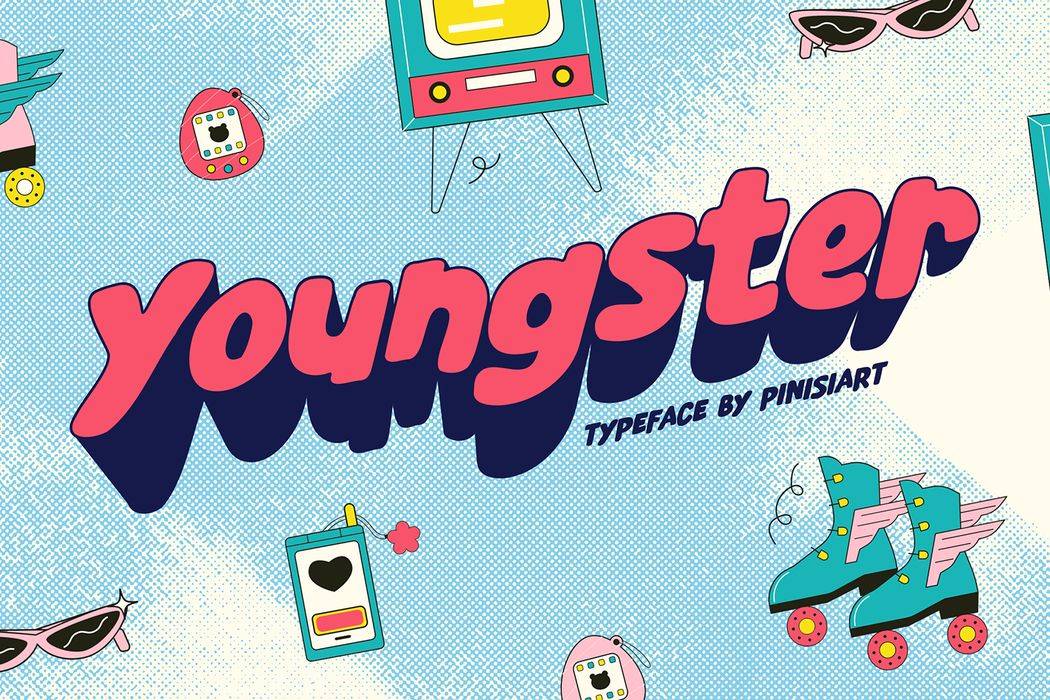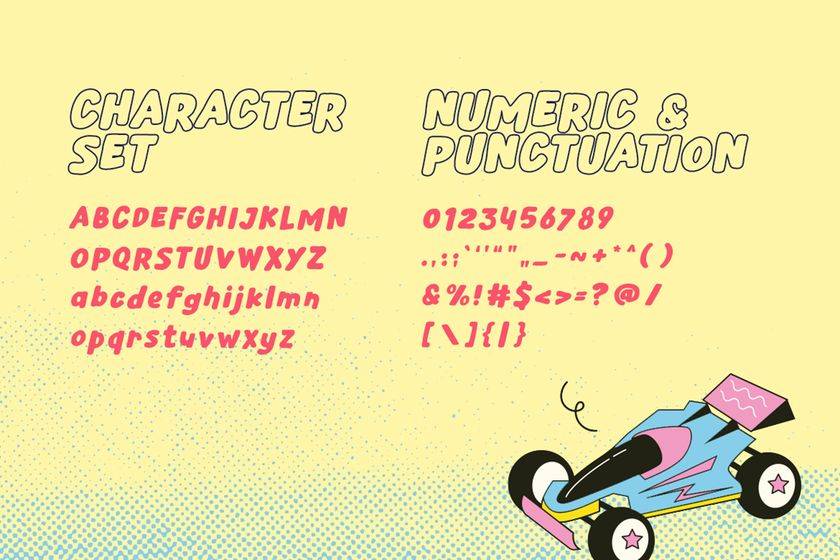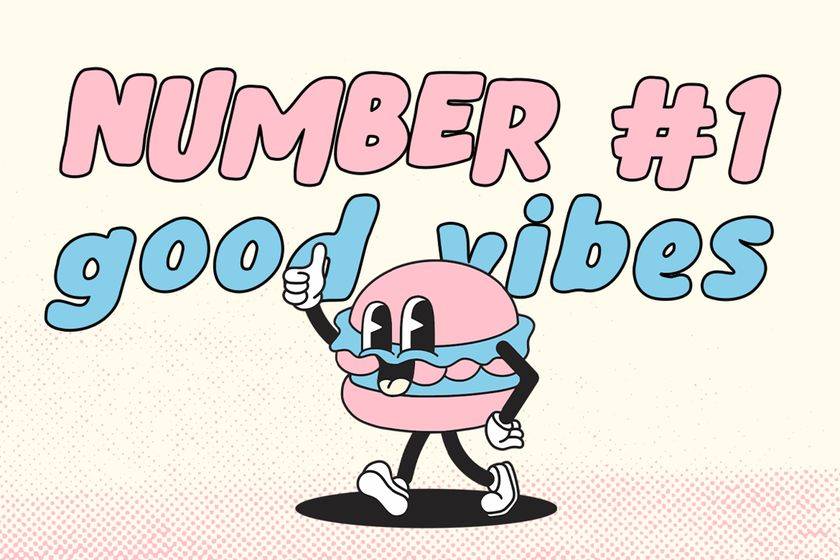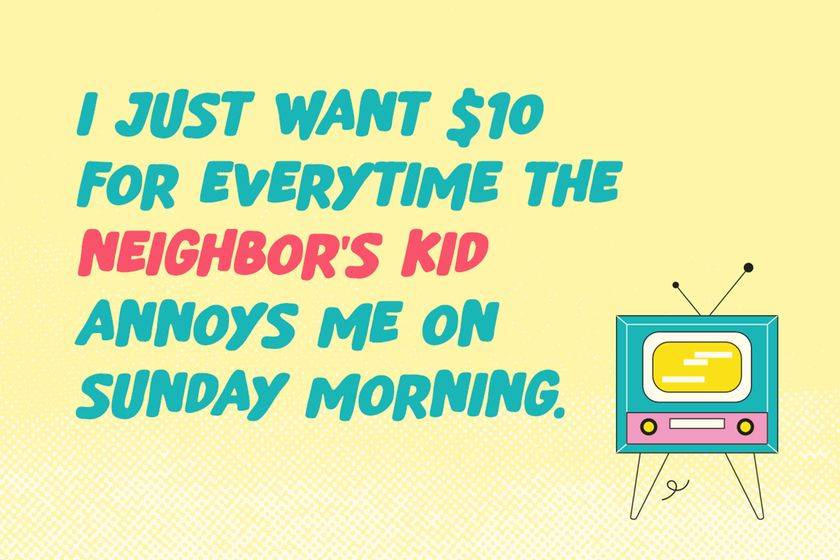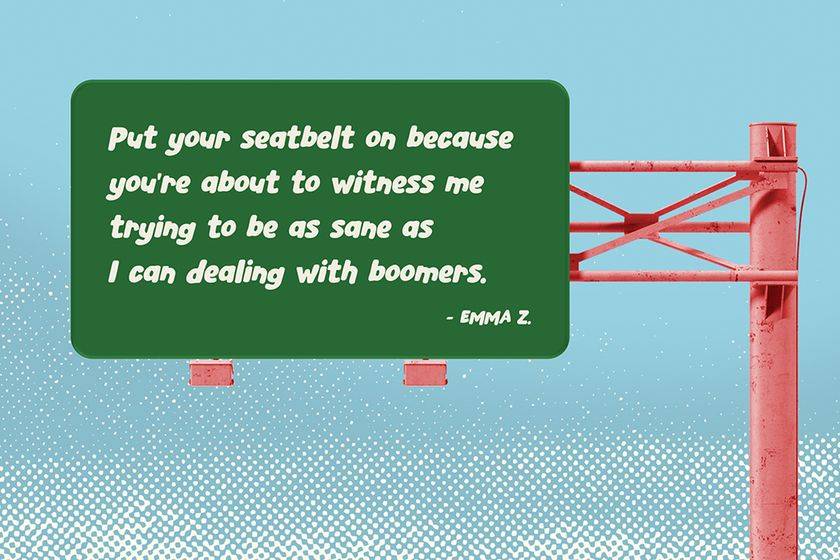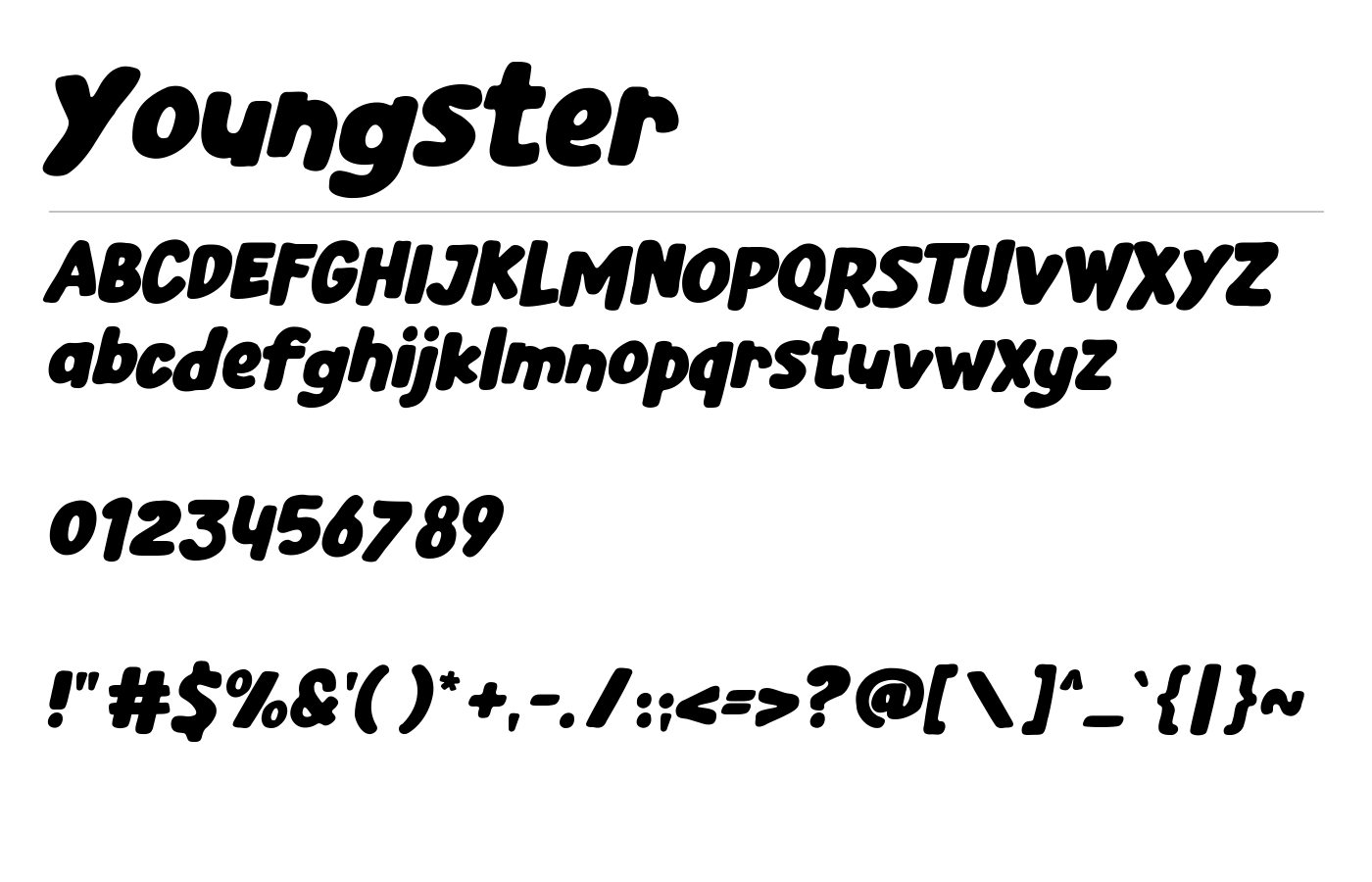
Youngster is a bold, playful sans serif font with rounded, friendly letterforms that give it a casual and youthful vibe. Its chunky weight and slightly condensed style make it perfect for eye-catching headlines, logos, and branding that aim to feel approachable and fun. This font works especially well in designs for children’s products, creative projects, or any context that benefits from an energetic and informal tone.
Youngster Font
About Youngster Font